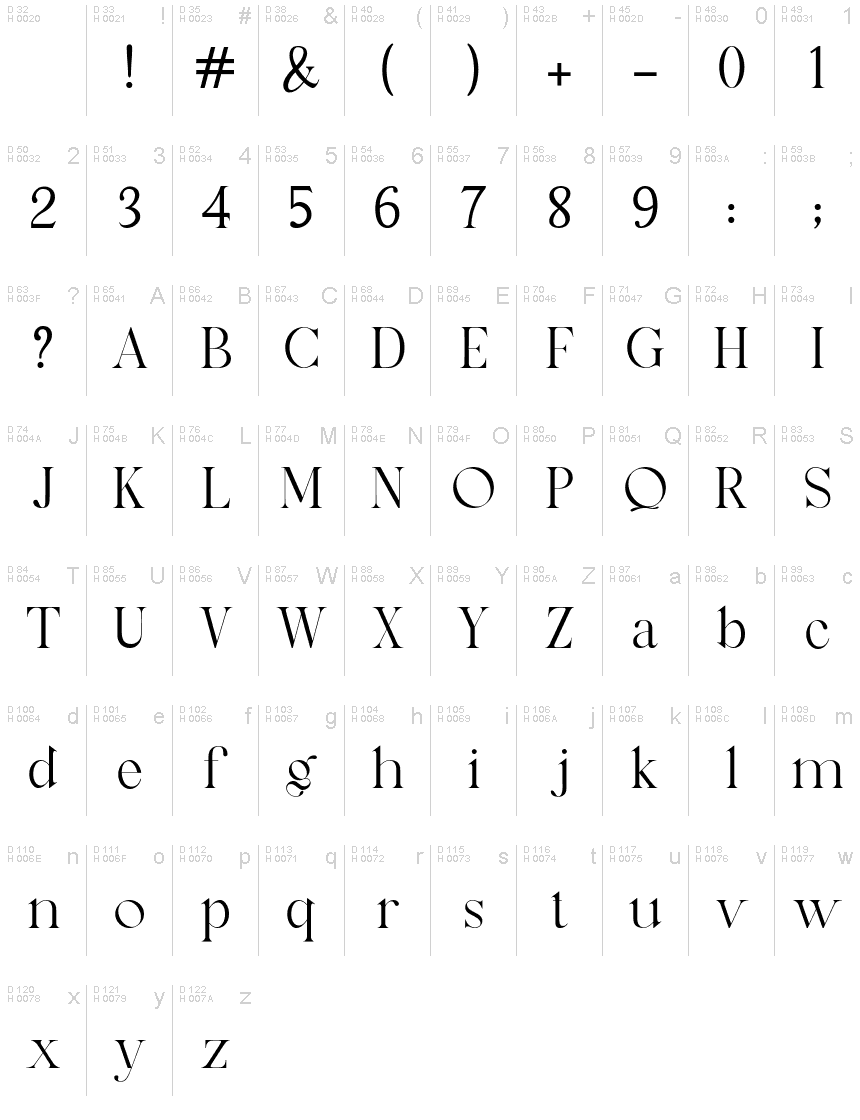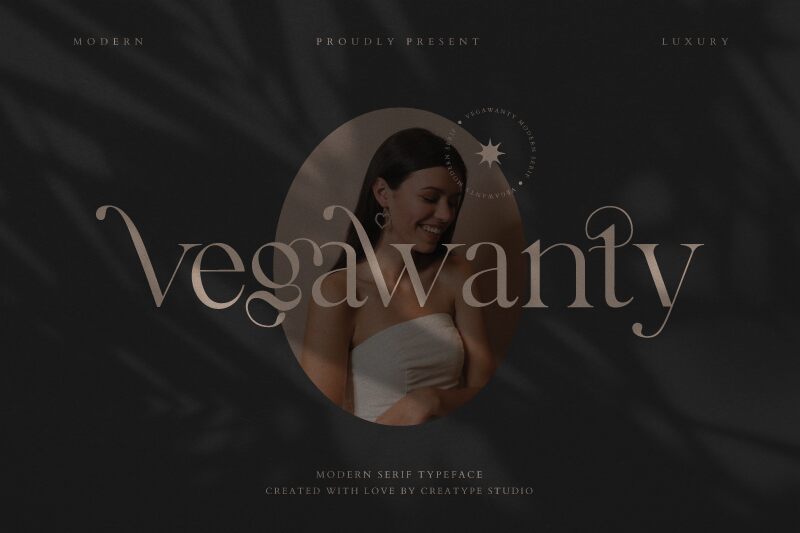
Vegawanty Regular
Vegawanty by Rian Rahardi is a light serif font perfect for creating elegant designs. It's suitable for logo design, branding projects, wedding invitations, or any project that requires a touch of sophistication.